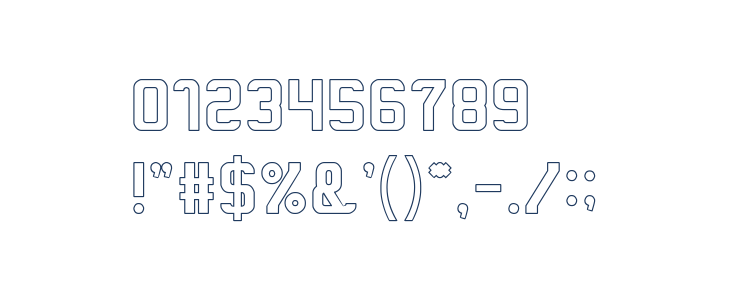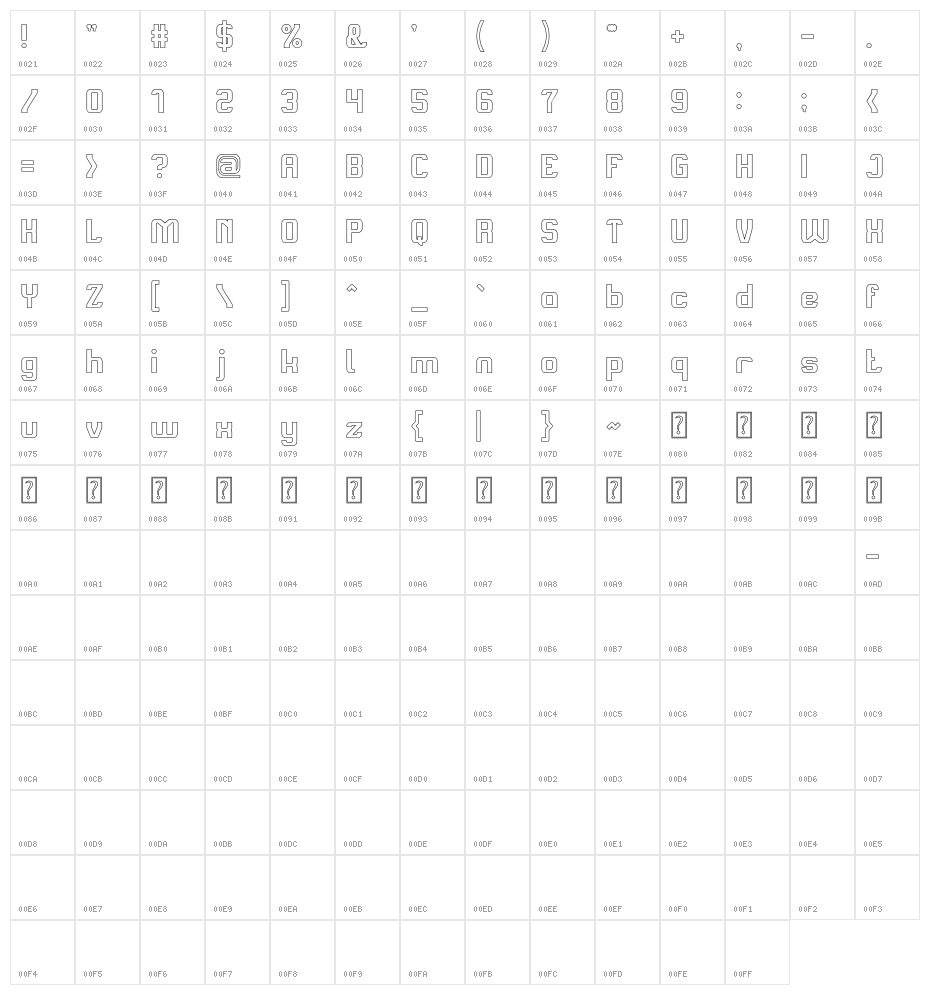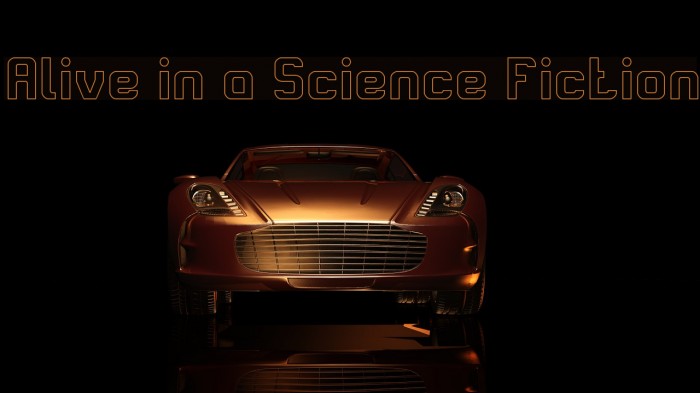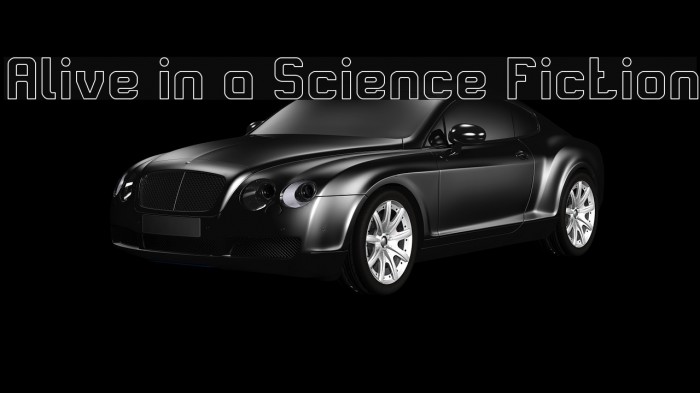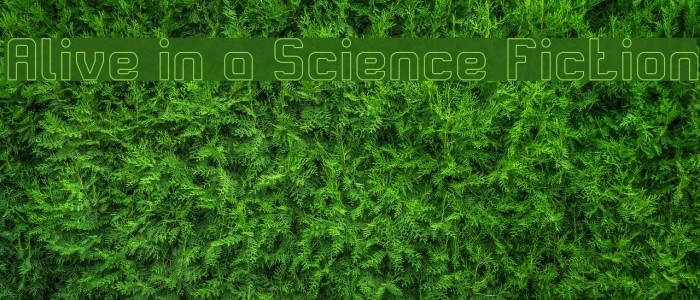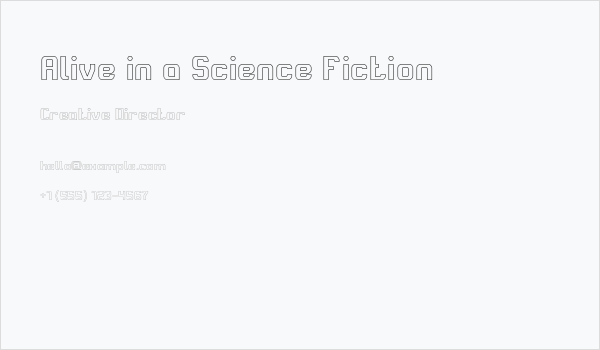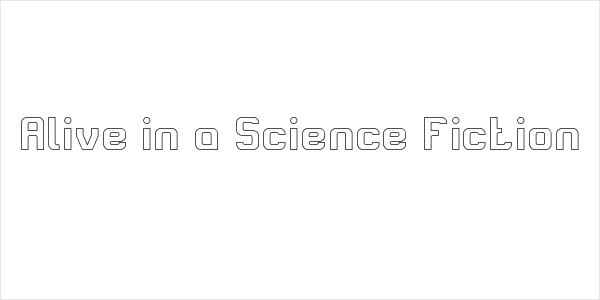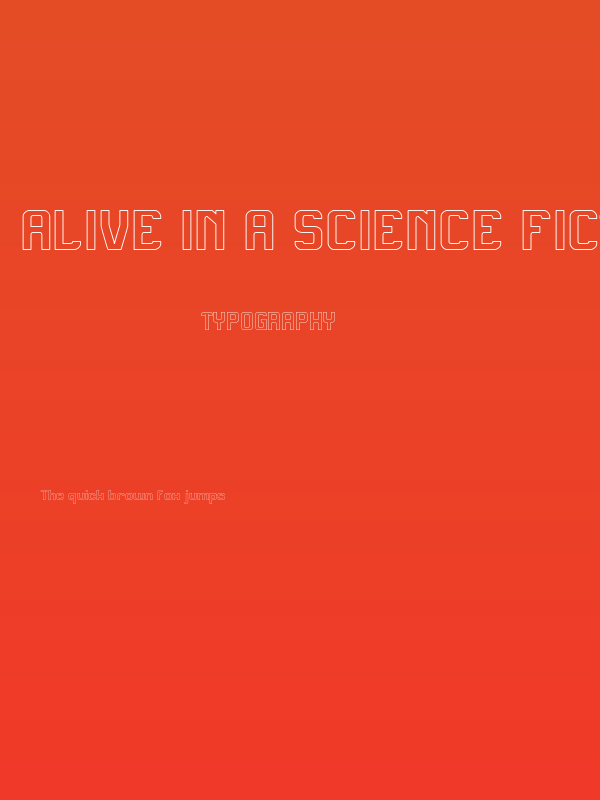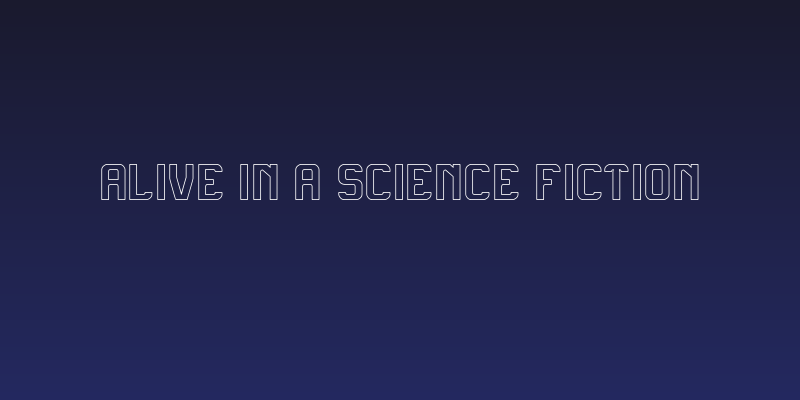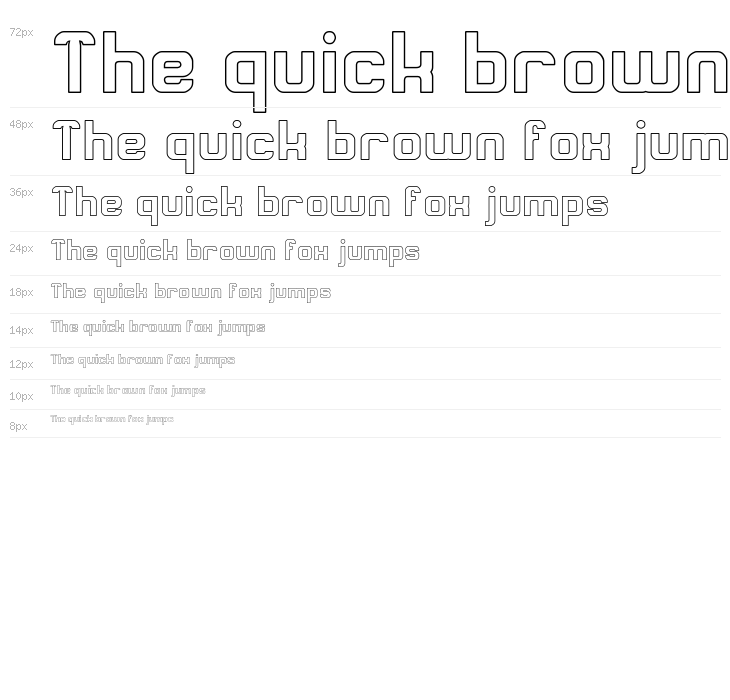
Alive in a Science Fiction Font
Alive in a Science Fiction Description
This font features a futuristic and geometric design, characterized by its hollow, outlined letterforms. The uppercase and lowercase letters maintain a consistent structure, with sharp angles and straight lines that evoke a sense of modernity and technological advancement. The numerals and special characters follow the same stylistic approach, ensuring uniformity across all glyphs. The font's clean and precise appearance makes it suitable for digital and print media where a contemporary and innovative look is desired. Its unique style can capture attention while maintaining readability.
| Proposed Projects | Ideal for science fiction book covers, tech company logos, video game interfaces, and futuristic-themed event posters. |